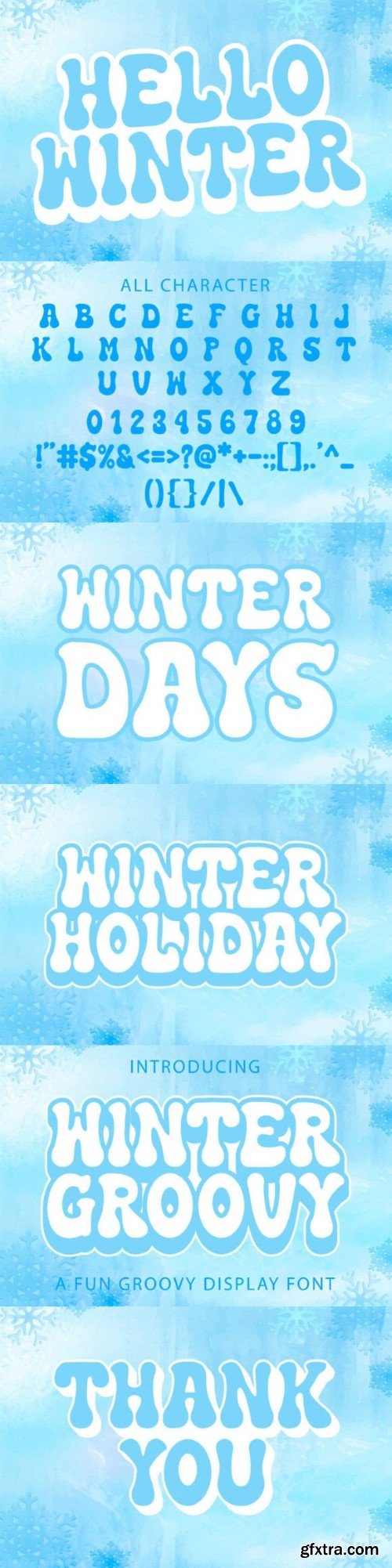
Winter Groovy is a cool, vintage-style handwritten font. Use it to add that special retro touch to any design idea! It can be used for logos, branding, invitations, stationery, wedding designs, social media posts, and much more!